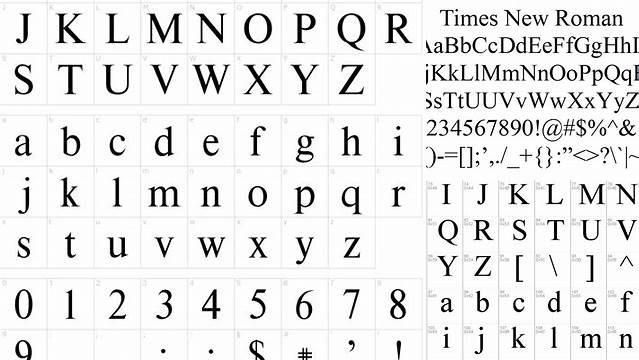
Times New Roman Font: A Deep Dive
Let's start with the basics. Times New Roman is a serif typeface. What's a serif, you ask? Those are the little decorative strokes at the end of the letters. These serifs are said to help guide the eye across the page, making it easier to read large blocks of text. This font was commissioned by The Times newspaper in 1931 and designed by Stanley Morison and Victor Lardent. The goal? To create a font that was both legible and space-efficient for newspaper printing. It quickly became a standard for publishing and has remained popular ever since. The enduring appeal of Times New Roman lies in its readability and classic appearance. It's a font that communicates authority and professionalism, making it a go-to choice for formal documents, academic papers, and books.
Times New Roman for Web Design
Using Times New Roman for web design can be a bit controversial. While it's a classic, it's also considered by some to be overused and boring. However, when used correctly, it can still be effective, especially for websites that aim for a traditional or formal look. To use Times New Roman on your website, you'll typically use CSS. You can either link to a hosted version of the font (like from Google Fonts, although Times New Roman isn't available there) or upload the font file to your server and use the @font-face rule. Remember to include fallback fonts in your CSS in case Times New Roman isn't available on the user's system. For example, you could use serif as a generic fallback. Also, consider using a modern font pairing to complement Times New Roman and give your website a more contemporary feel.
Alternatives to Times New Roman Font
While Times New Roman is a classic, there are tons of other great serif fonts out there. If you're looking for something similar but with a bit more flair, consider these alternatives: Georgia is a very readable serif font that was designed for the screen. It has a slightly wider appearance than Times New Roman, making it a good choice for body text. Baskerville is another elegant serif font with a more refined look. It's great for headings and subheadings. Lora is a modern serif font that's well-suited for both print and web. It has a contemporary feel while still maintaining the classic serif look. Experiment with different fonts to find one that suits your project and aesthetic preferences. You may even discover a new favorite font that you prefer over Times New Roman!
Times New Roman vs. Arial: A Comparison
The great font debate! Times New Roman vs. Arial is a classic showdown. Times New Roman is a serif font, while Arial is a sans-serif font. This means Arial lacks the little decorative strokes that Times New Roman has. Arial is often seen as more modern and cleaner, while Times New Roman is considered more traditional and formal. Readability depends on the context. Times New Roman is generally considered more readable in print, while Arial is often preferred for on-screen reading. The best choice depends on your personal preference and the specific requirements of your project. Consider the overall tone and message you want to convey when choosing between these two popular fonts.
The History of Times New Roman
Times New Roman has a fascinating history. It was created in 1931 for The Times newspaper in London. Stanley Morison, a typographic advisor to the newspaper, felt that the existing font was outdated and difficult to read. He commissioned Victor Lardent, an artist at The Times, to design a new typeface. The result was Times New Roman, a font that was both legible and space-efficient. The font was an instant success and quickly became one of the most popular fonts in the world. Its clean lines and classic appearance made it a favorite for books, newspapers, and other printed materials. Over the years, Times New Roman has been updated and refined, but it has retained its basic design and appeal.
Times New Roman in Legal Documents
Times New Roman is a common choice for legal documents. Its formal and authoritative appearance makes it well-suited for contracts, briefs, and other legal paperwork. Many courts and legal institutions even specify Times New Roman as the required font for submissions. The reason for this preference is its readability and professional look. It conveys a sense of seriousness and attention to detail. When preparing legal documents, make sure to follow any specific font requirements and always double-check for accuracy and consistency. Using Times New Roman can help ensure that your documents are taken seriously and are easy to read.